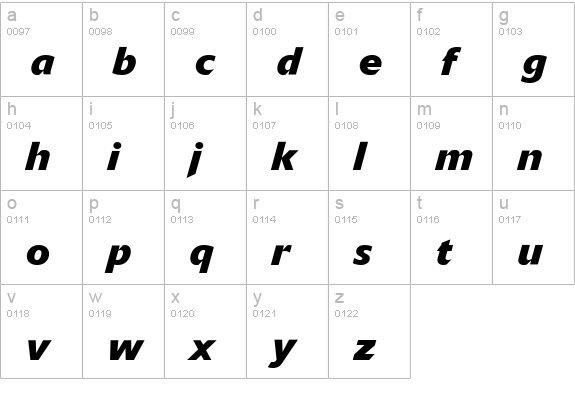
Delta Jaeger (R) Bold Italic Font Details
Delta Jaeger (R) Bold Italic is a strong, high-contrast, italic variant in the Delta typeface family \xE2\x80\x94 well suited to headlines, attention-grabbing titles, and strong calls-to-action.
Delta Jaeger (R) Bold Italic is a striking and powerful font that demands attention with its bold and italic style. It exudes confidence and sophistication, making it perfect for creating impactful designs and messages. The sleek and modern look of Delta Jaeger (R) Bold Italic makes it versatile for a wide range of design projects, from branding to advertising to editorial layouts. Best of all, Delta Jaeger (R) Bold Italic is available for free download at FontsMarket.com. This means that you can easily access this premium font without any cost, making it an excellent choice for designers looking to elevate their projects without breaking the bank. With its bold presence and sleek italic styling, Delta Jaeger (R) Bold Italic is sure to make a statement in any design project.